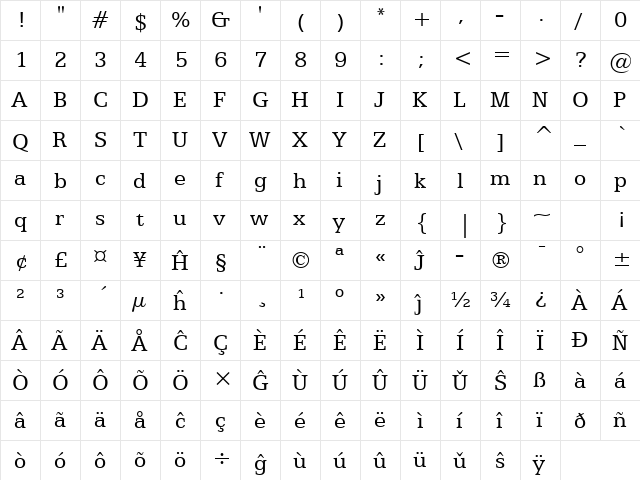
Egyptian505 BT Eo Roman
Design Context for Egyptian505 BT Eo Typeface
Egyptian505 BT Eo features prominent, blocky serifs that give it a confident, grounded presence — equally at home in editorial settings and bold branding work.
Works well in editorial design, news publishing, impactful branding, and poster typography.
Pro Tip: Try Egyptian505 BT Eo set tight in headlines for a classic editorial feel. Its slab serifs create strong horizontal rhythm that anchors a page layout.